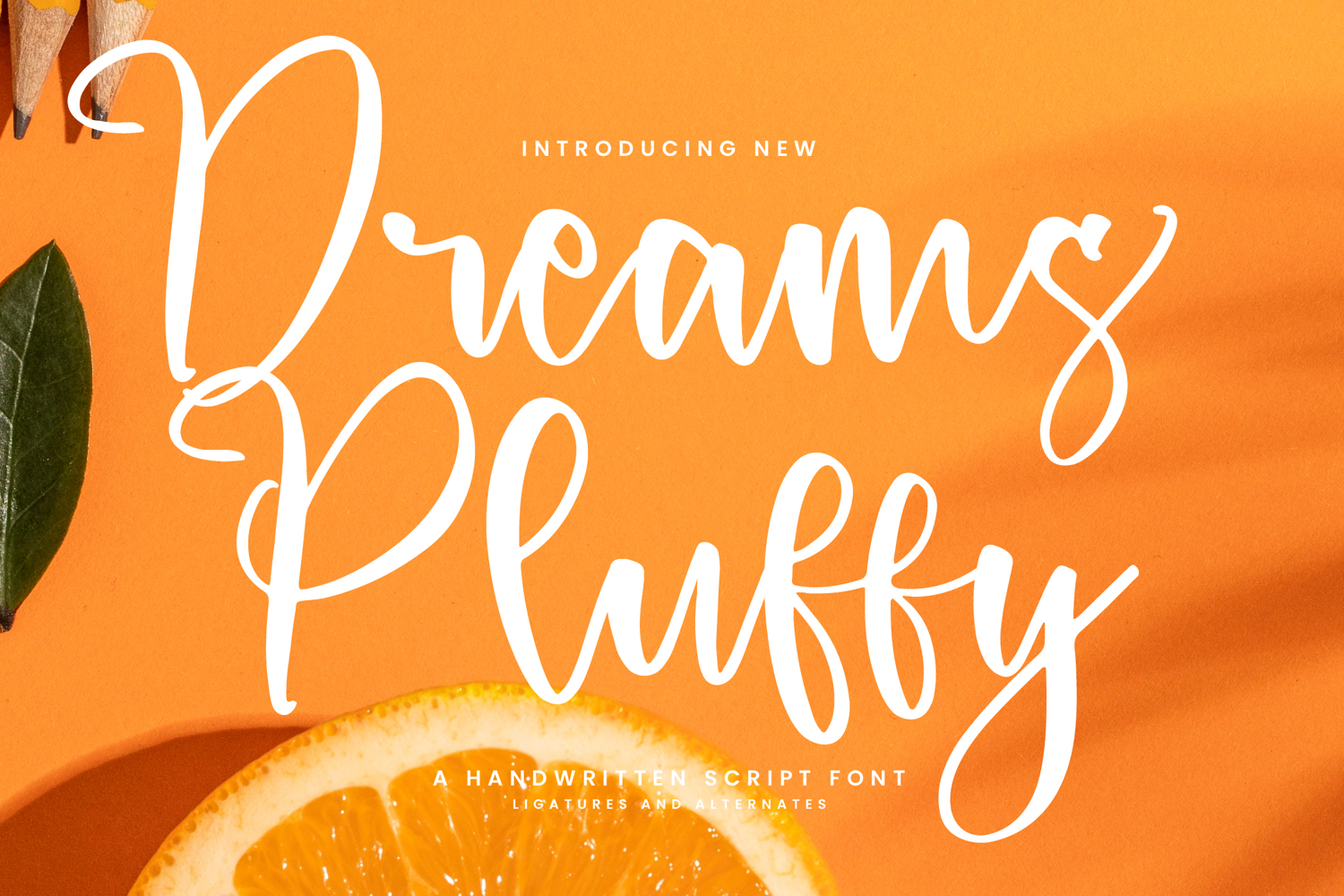
Dreams Pluffy
Dreams Pluffy is a playful and soft handwritten font that exudes warmth and creativity. With its smooth, rounded strokes, this font brings a nice touch to your designs, making it perfect for projects like invitations, greeting cards, logos, and product designs that need a fun, imaginative flair. Its natural, hand-written appearance ensures clear readability while maintaining an artistic feel. Ideal for branding, events, or any project that calls for a joyful, whimsical vibe. Get your hands on Dreams Pluffy now and bring your designs to life with a touch of creativity!
Ligatures, Alternate & Swashes